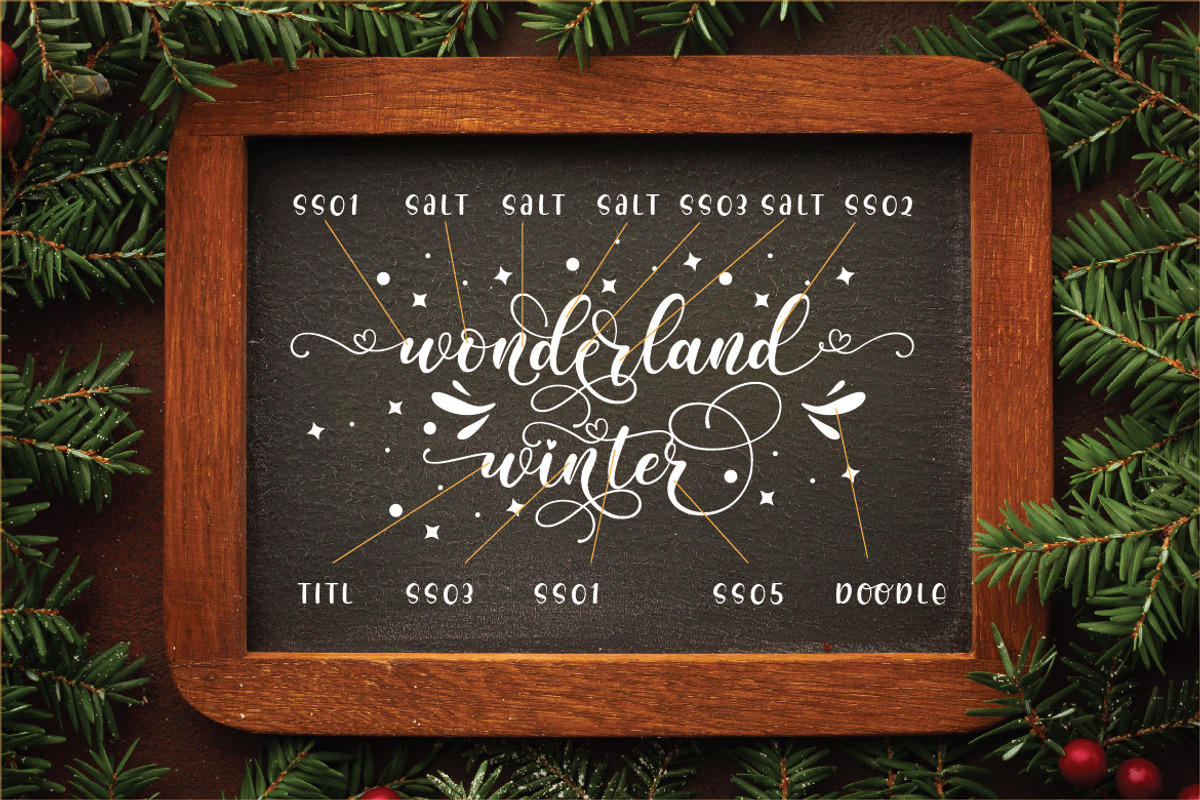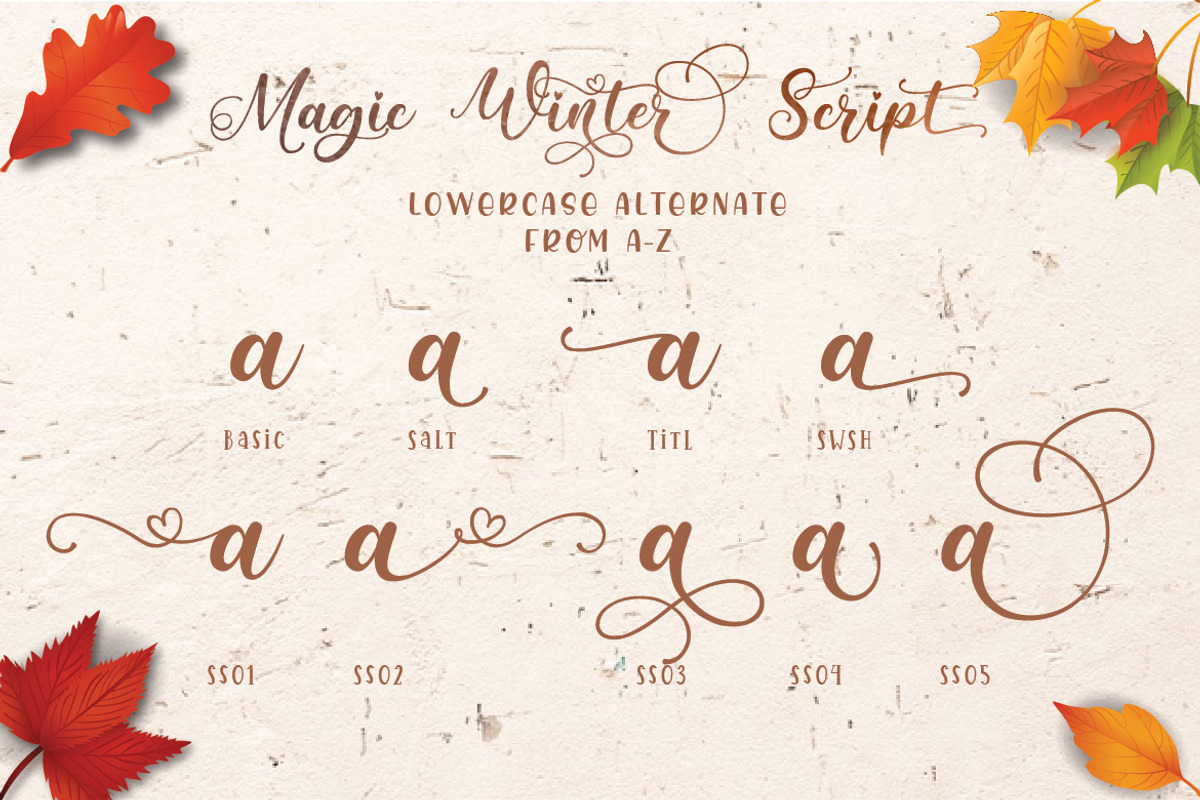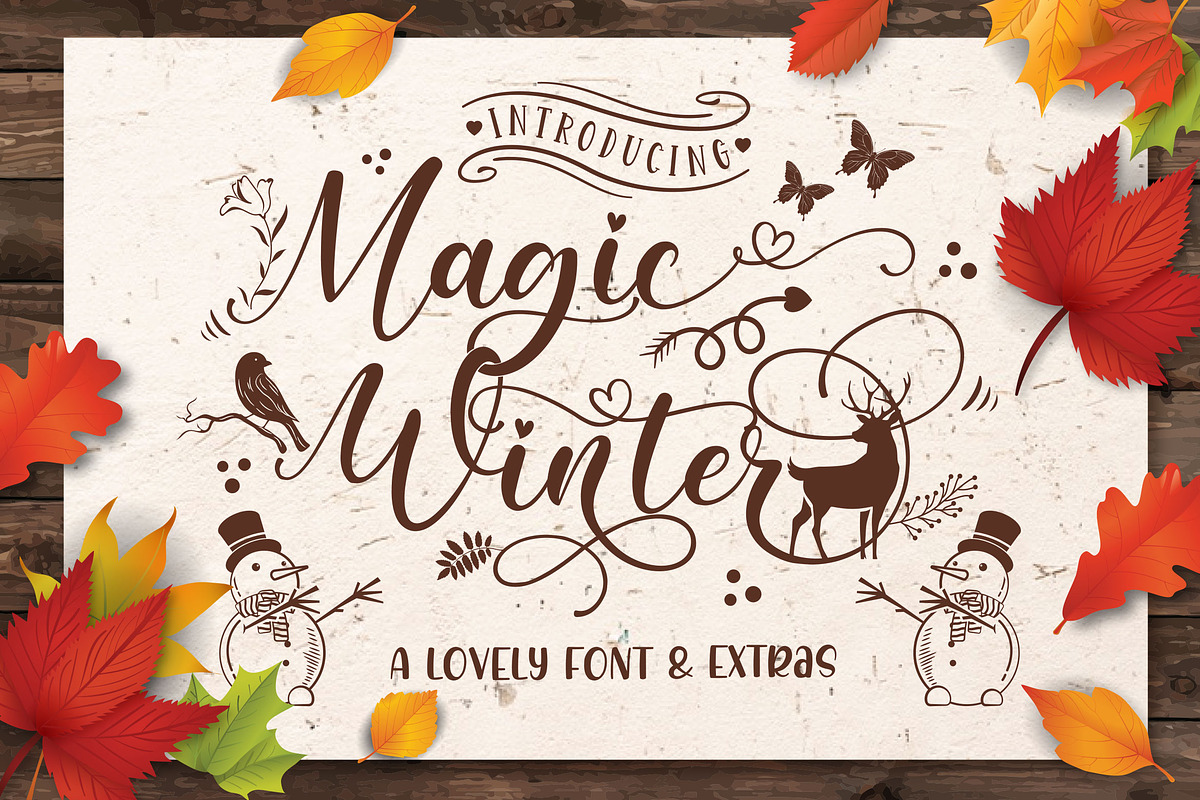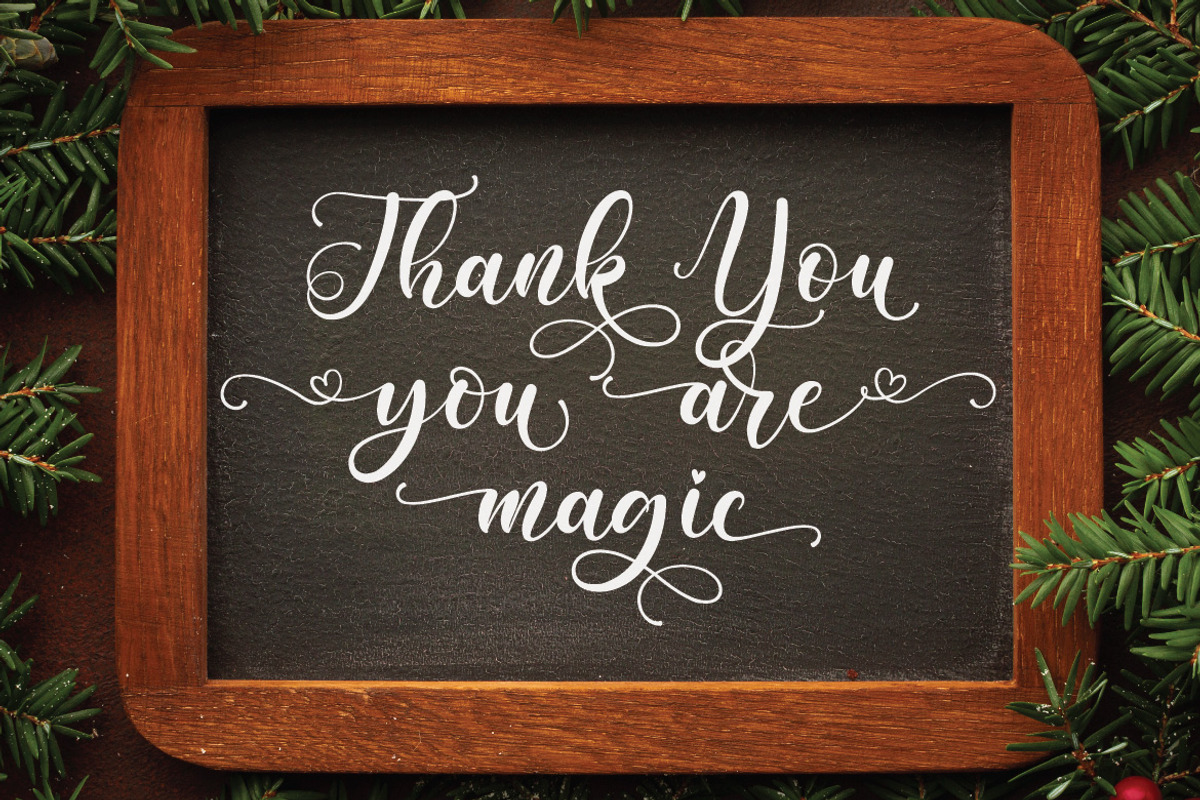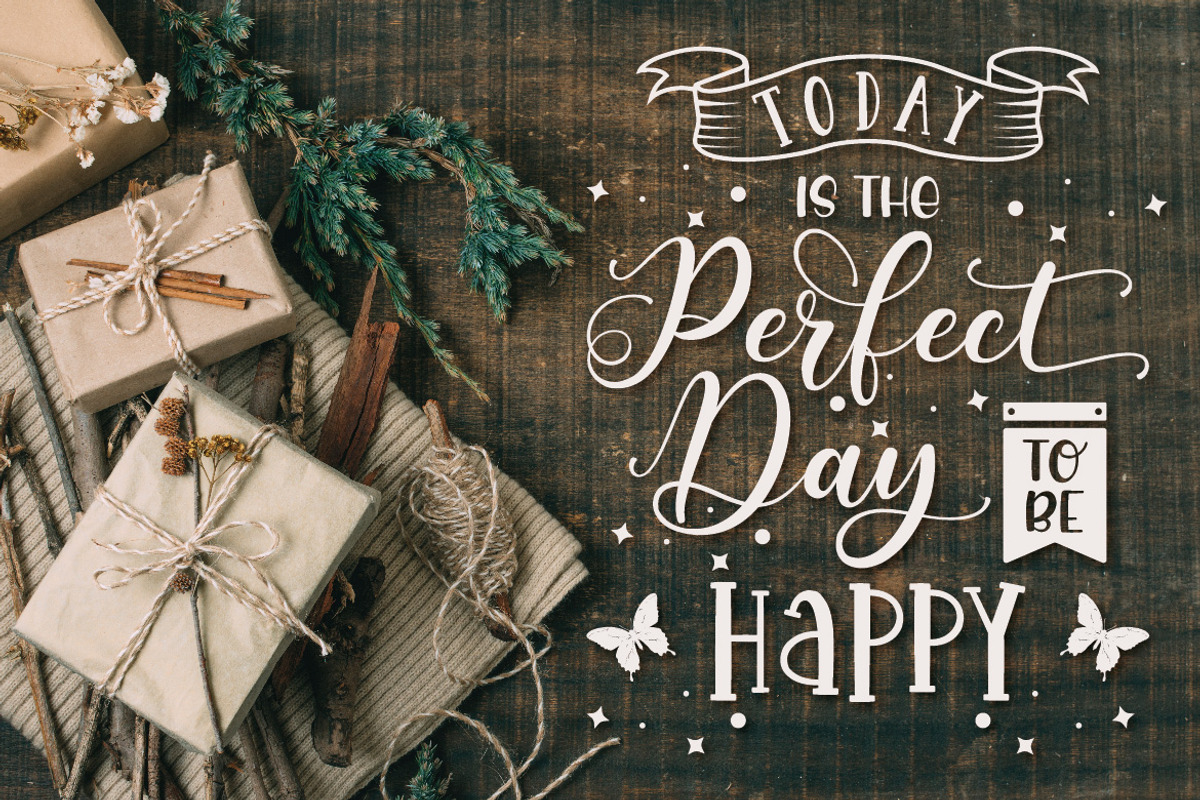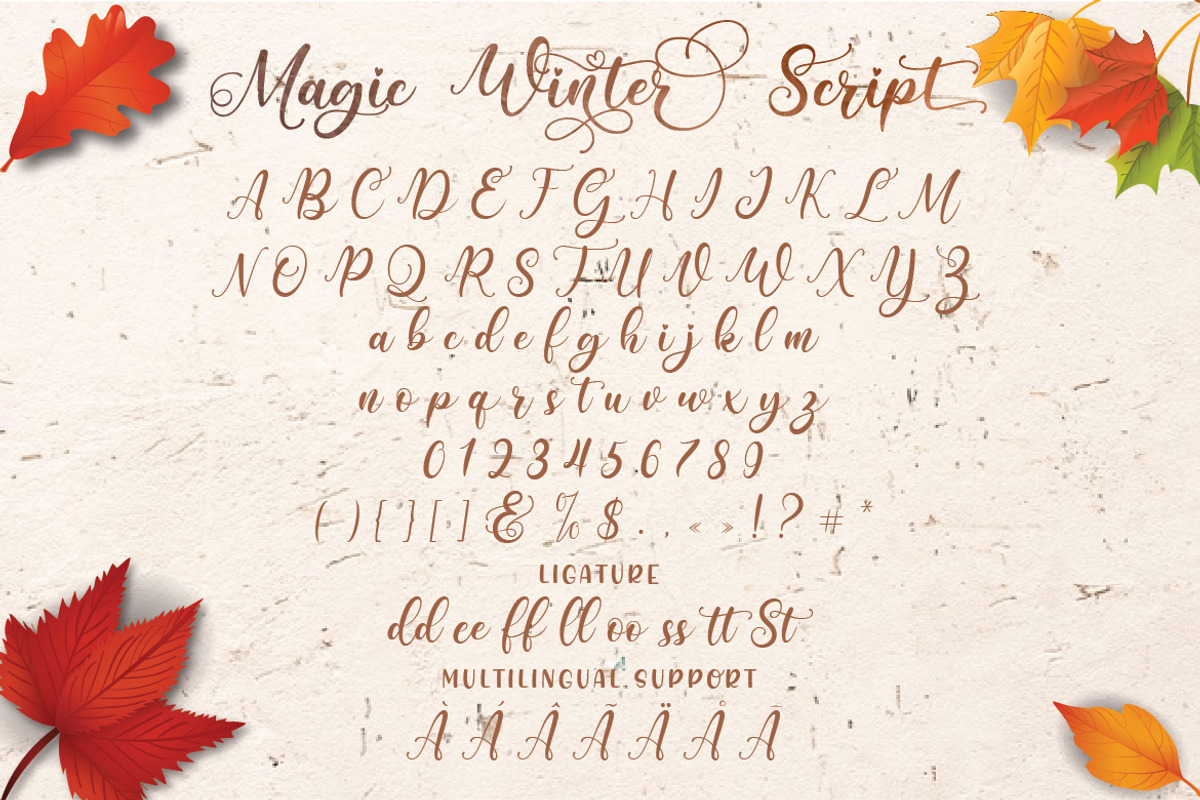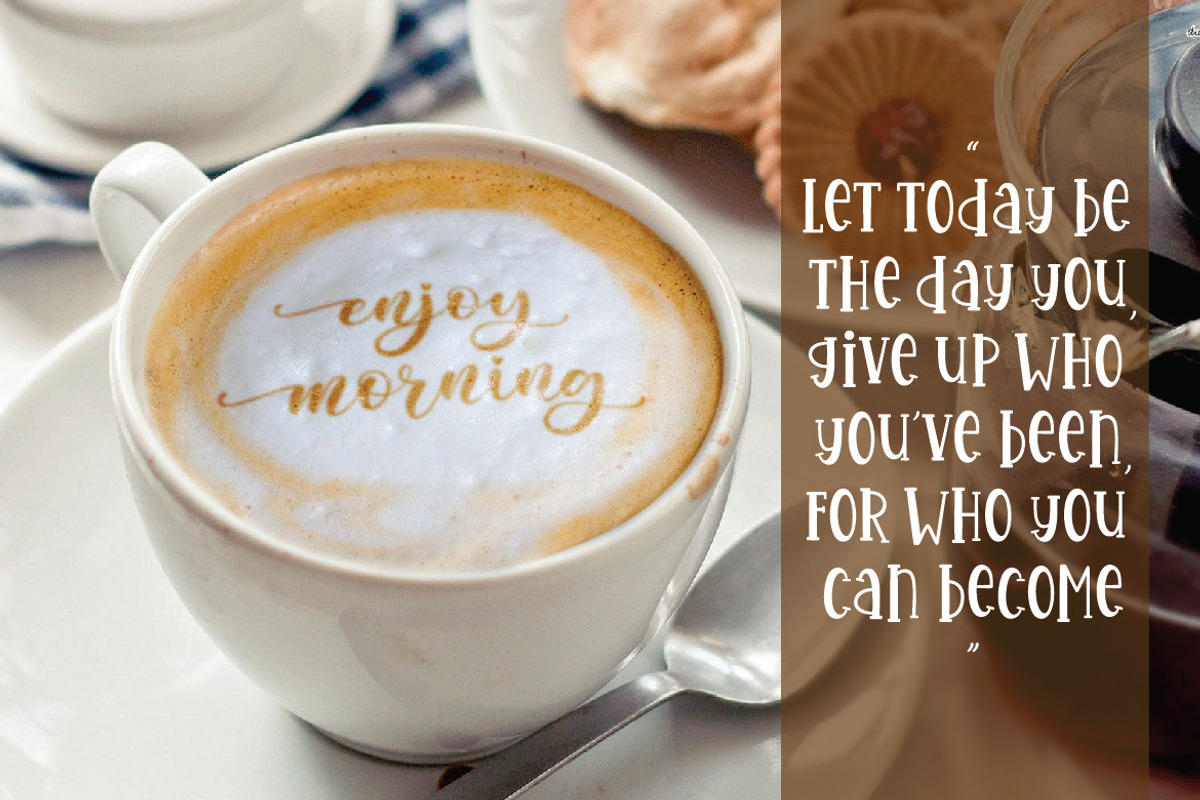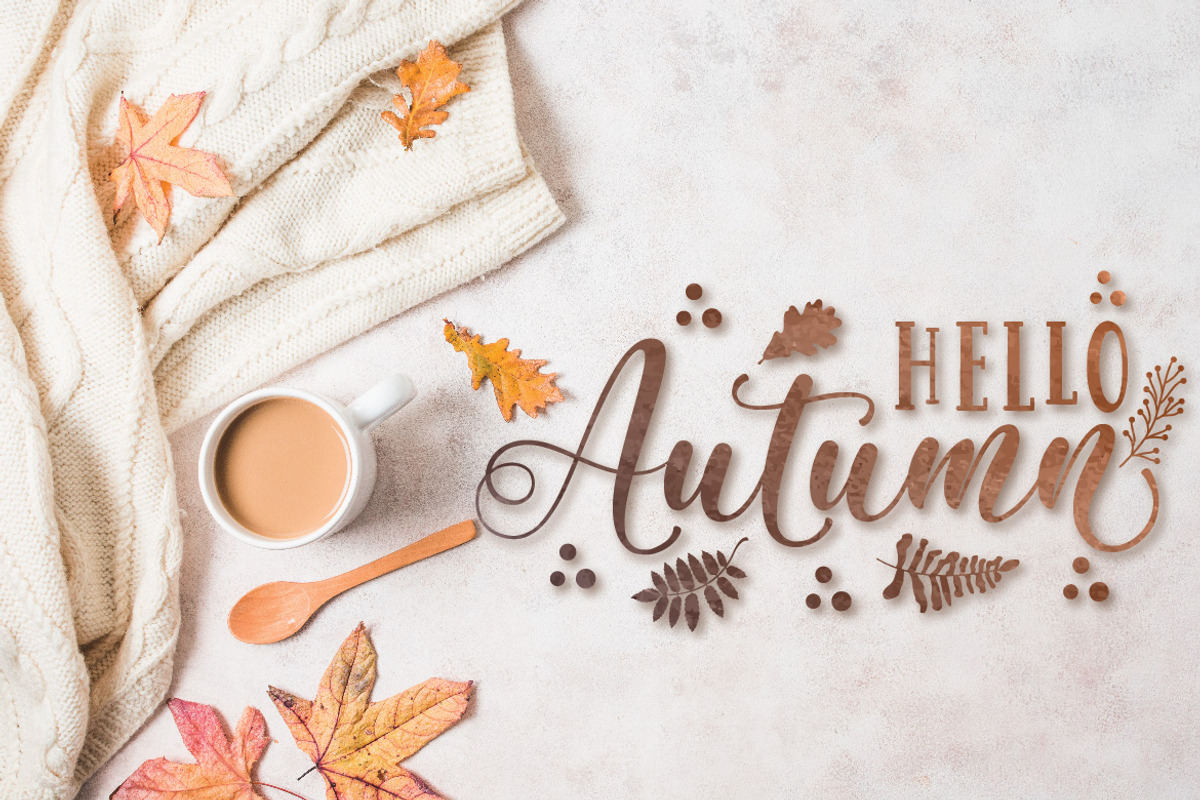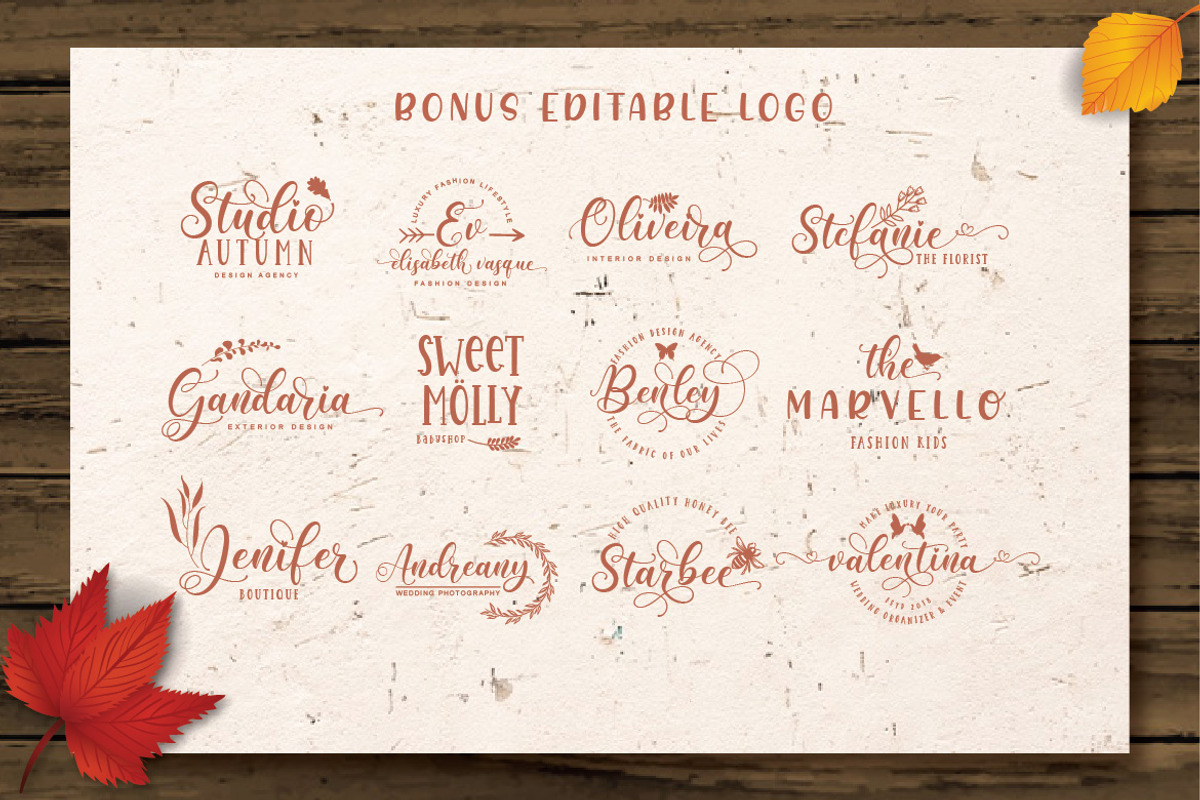
Magic Winter - Modern Calligraphy
Introducing Winter Magic script with many alternate character.Winter Magic is suitable for various products such as invitations, chrismast, winter, summer, spring, valentine day,product packaging, quotes, product design, photography, watermarks, logos, branding and other romantic projects..Everything can be accessed using software that supports Opentype, such as Adobe Indesign, Adobe CS Illustrator, Adobe Photoshop CC, and Corel Draw.